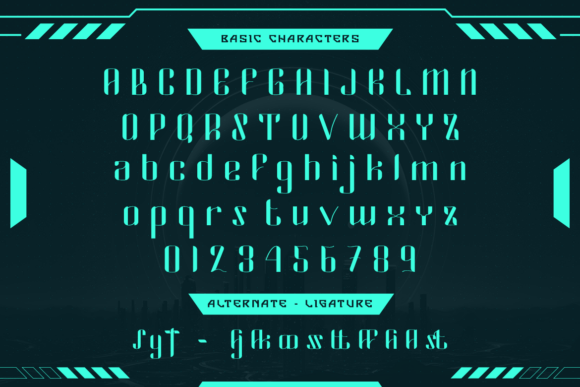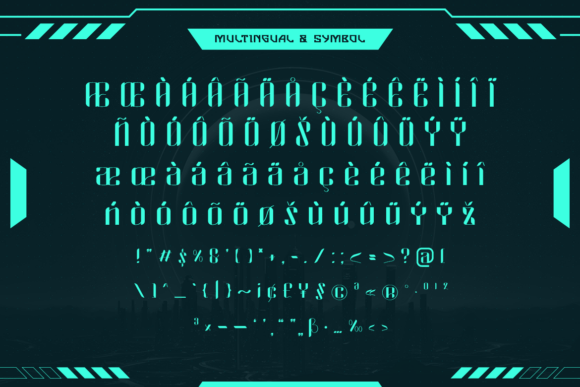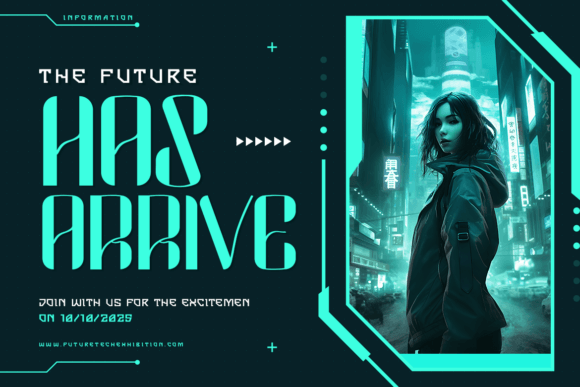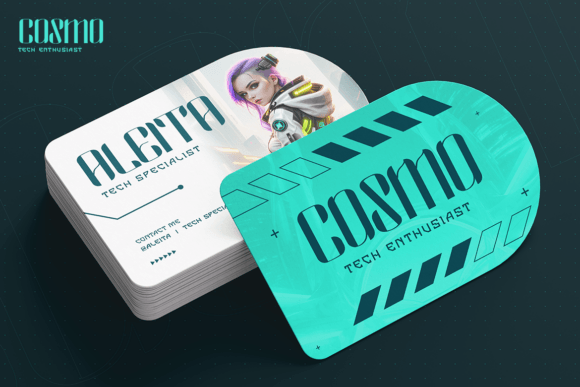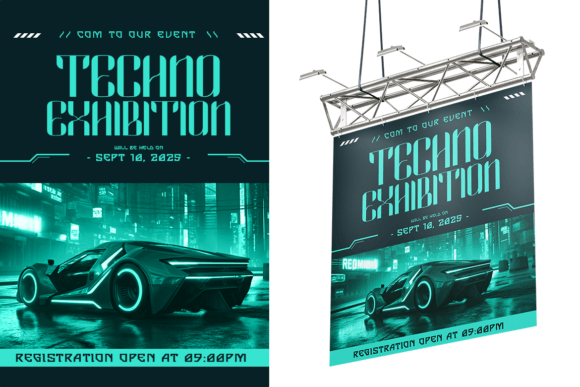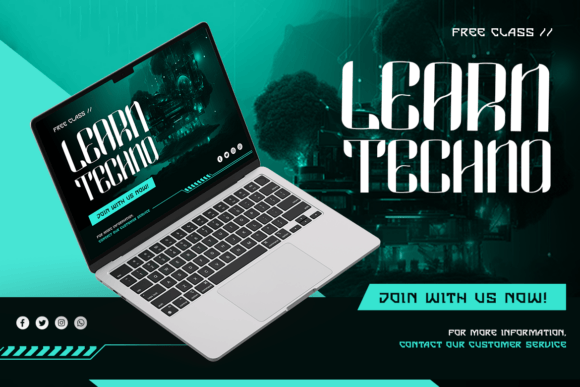
Helinex Font: Elevate Your Designs with a Futuristic Edge
In the realm of typography, few fonts manage to encapsulate the essence of modernity and futurism as effectively as Helinex. This bold, futuristic display typeface has been meticulously crafted to bring a sleek, high-tech aesthetic to a wide array of design projects. From tech-focused branding and video game interfaces to futuristic posters and digital artwork, Helinex is the perfect choice for designers looking to infuse their creations with a sense of cutting-edge technology and forward-thinking design.
The Design Philosophy Behind Helinex
Helinex’s design is rooted in the principles of geometric precision and innovation. Its sharp angles, geometric shapes, and avant-garde letterforms work in harmony to create a visually striking typeface that commands attention. Each character in the Helinex font has been carefully designed to convey a sense of dynamism and modernity, making it an excellent fit for projects that require a clean, high-tech look.
Key Features of Helinex Font
- Bold and Futuristic: Helinex boasts a bold presence that is perfect for headlines, titles, and any design element that needs to stand out.
- Geometric Precision: The font’s geometric shapes and sharp angles lend it a futuristic feel that is ideal for tech-related projects.
- Innovative Letterforms: Helinex’s unique letterforms are designed to evoke a sense of innovation and forward-thinking, making it perfect for brands and projects that want to appear at the forefront of their industry.
- Versatility: While Helinex excels in display settings, its clear and legible design makes it suitable for a variety of applications, from digital interfaces to print materials.
Applications of Helinex Font
The versatility of Helinex makes it an excellent choice for a wide range of design projects. Here are some of the key areas where Helinex truly shines:
- Tech-Focused Branding: For tech startups, software companies, and any brand looking to convey a sense of innovation and modernity, Helinex is an ideal choice.
- Video Game Interfaces: The font’s futuristic aesthetic makes it a natural fit for video game titles, menus, and in-game text, adding to the immersive experience.
- Futuristic Posters: Whether promoting a sci-fi movie, a tech conference, or a product launch, Helinex can help create eye-catching posters that capture the audience’s attention.
- Digital Artwork: For digital artists looking to add a futuristic touch to their work, Helinex can be used to create compelling text overlays, captions, and titles.
Tips for Using Helinex Effectively
To maximize the impact of Helinex in your designs, consider the following tips:
- Pair with Simple Fonts: For body text, pair Helinex with a simpler, more readable font to create visual contrast and ensure legibility.
- Experiment with Colors: While Helinex looks striking in bold colors, experimenting with gradients, metallic effects, or neon colors can further enhance its futuristic appeal.
- Consider Size and Placement: Use Helinex in larger sizes for headlines and titles to maximize its impact, and in smaller sizes for subheadings or captions to maintain visual hierarchy.
Helinex is more than just a font – it’s a design statement. Its bold, futuristic aesthetic and geometric precision make it an invaluable tool for designers looking to infuse their projects with a sense of modernity and cutting-edge technology. Whether you’re working on a tech startup’s branding, a video game’s UI, or a futuristic poster, Helinex can help you achieve a standout, modern appeal. By incorporating Helinex into your design toolkit, you’ll be well-equipped to create visually striking and impactful designs that resonate with your audience.